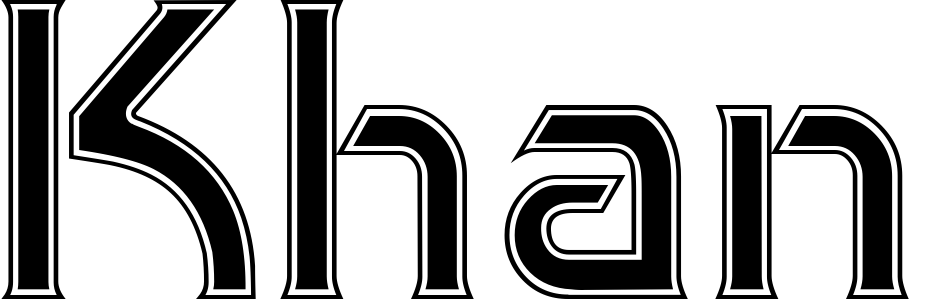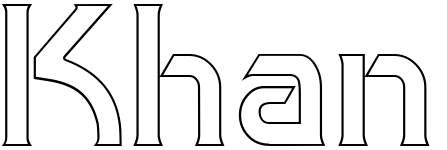
The Khan font is a contemporary typeface that captures the essence of modernity while paying homage to the rich history of calligraphy and typography. Drawing inspiration from traditional Mongolian scripts, its design seamlessly blends historical elements with a sleek, up-to-date aesthetic. This marriage of old and new gives Khan a unique place within the spectrum of typographic choices available to designers today.
Khan's character set is comprehensive, designed to support a wide range of languages and applications. It features a robust selection of glyphs, ensuring versatility in both print and digital media. The letters themselves exhibit a balance between fluid, organic shapes and more structured, geometric forms. This equilibrium lends the font a distinctive look that is both refined and approachable.
The font's versatility is one of its strongest characteristics. Whether used in headlines, body text, or as an accent, Khan maintains readability and impact. It shines in contexts that call for a blend of sophistication and originality, making it an excellent choice for branding, editorial design, and artistic projects. Additionally, its unique heritage-inspired flair allows it to stand out in creative projects that require a touch of individuality without sacrificing clarity.
In essence, Khan is more than just a font; it represents a bridge between tradition and modernity, offering designers a tool that is both functional and inspiring. Its ability to adapt to various contexts while maintaining its distinctive character makes it a cherished asset in the toolbox of designers looking to infuse their work with depth and narrative.